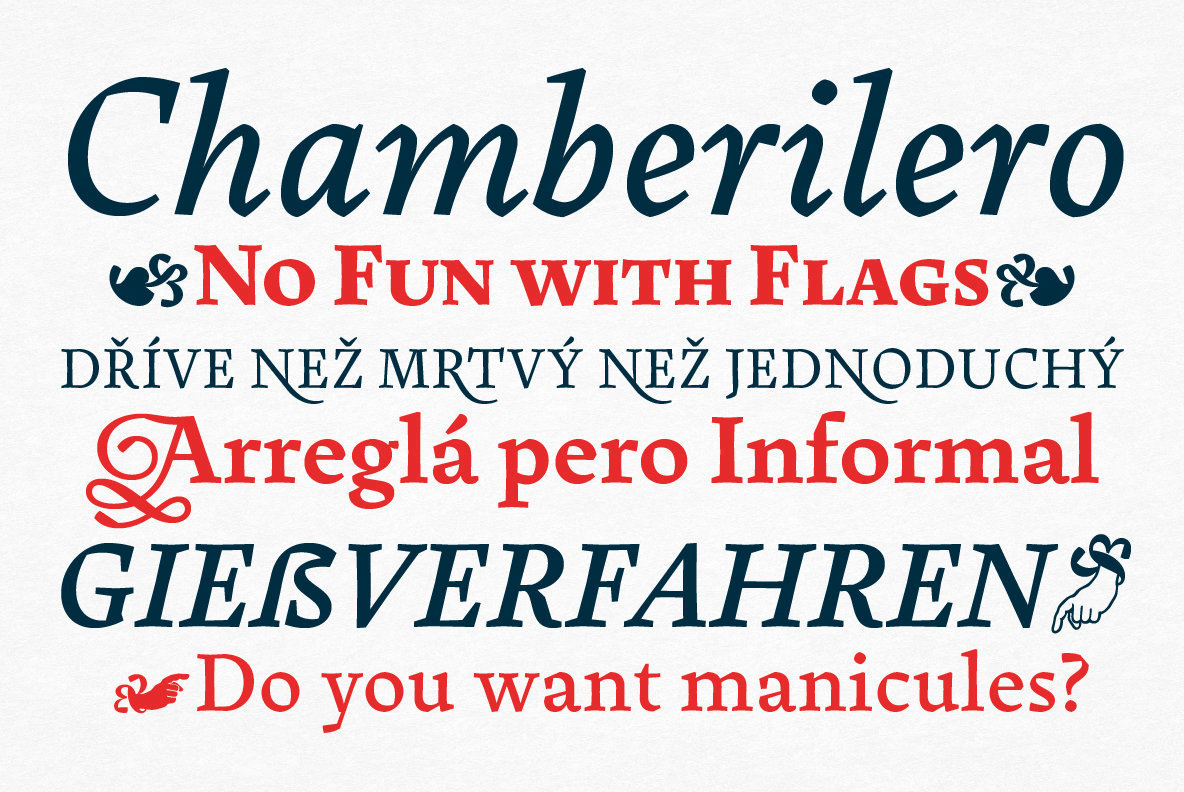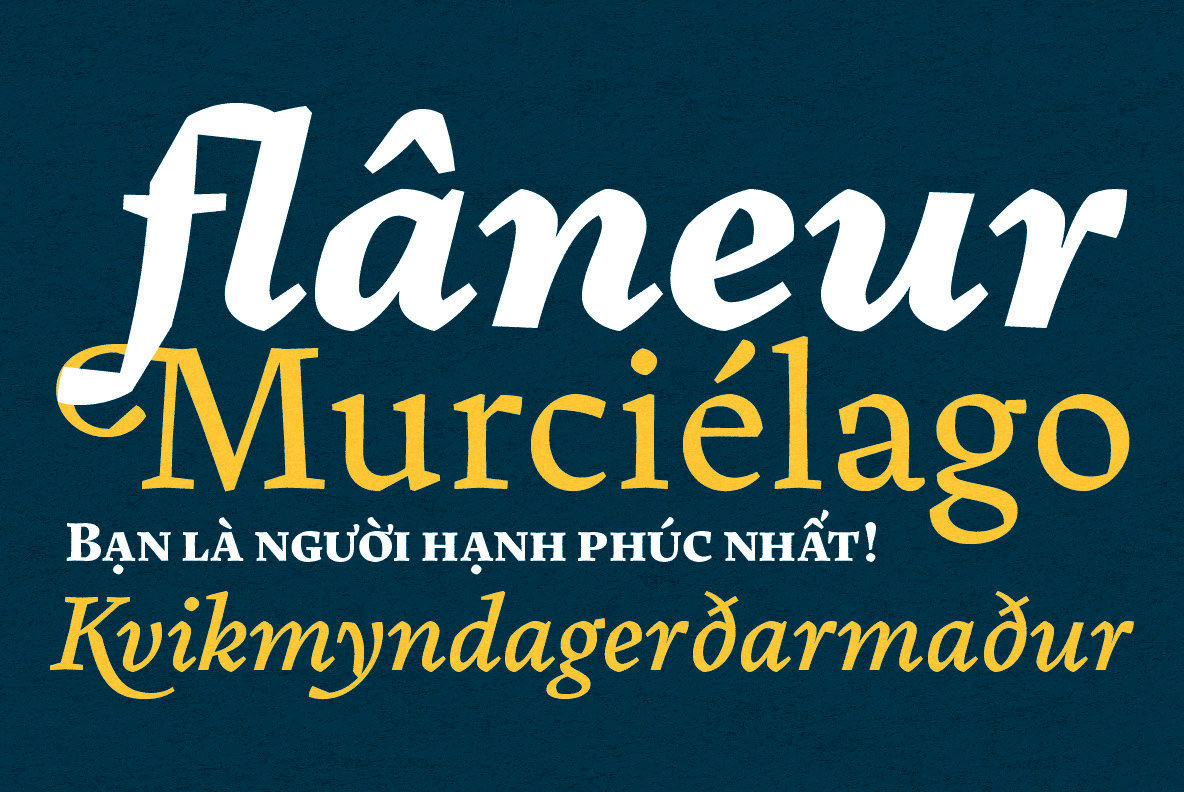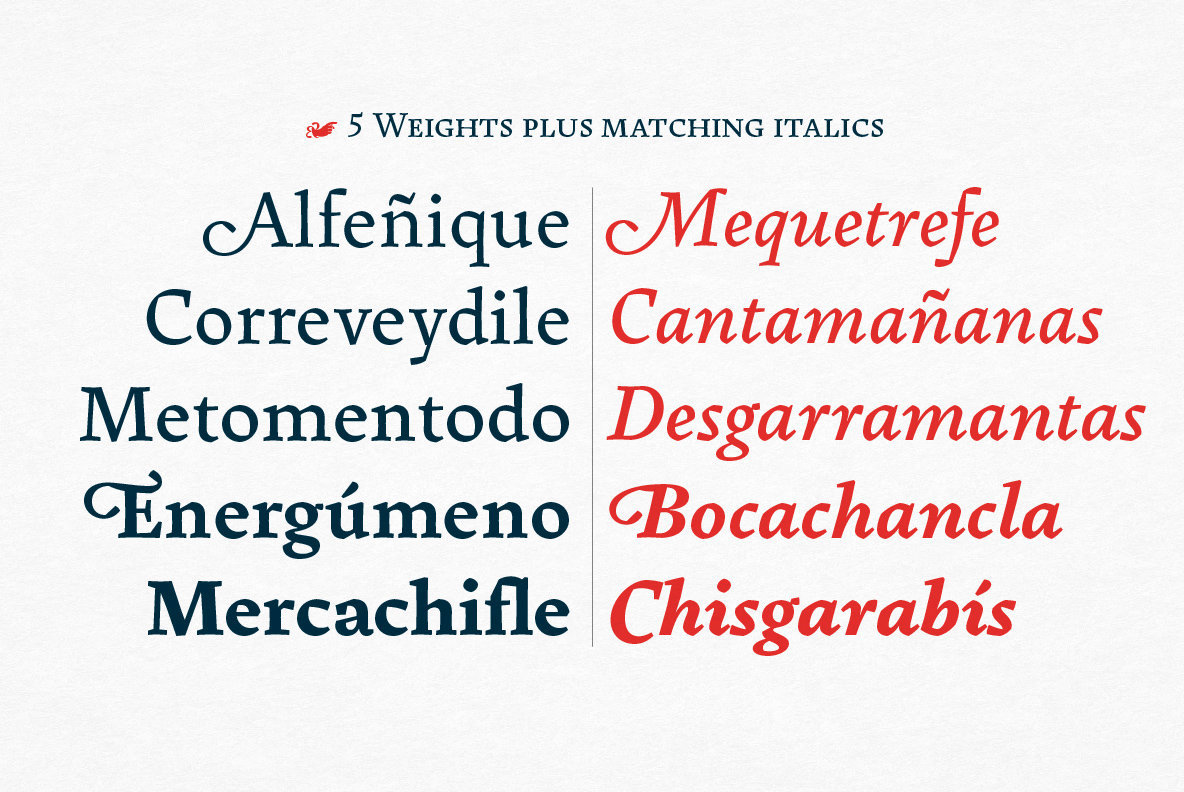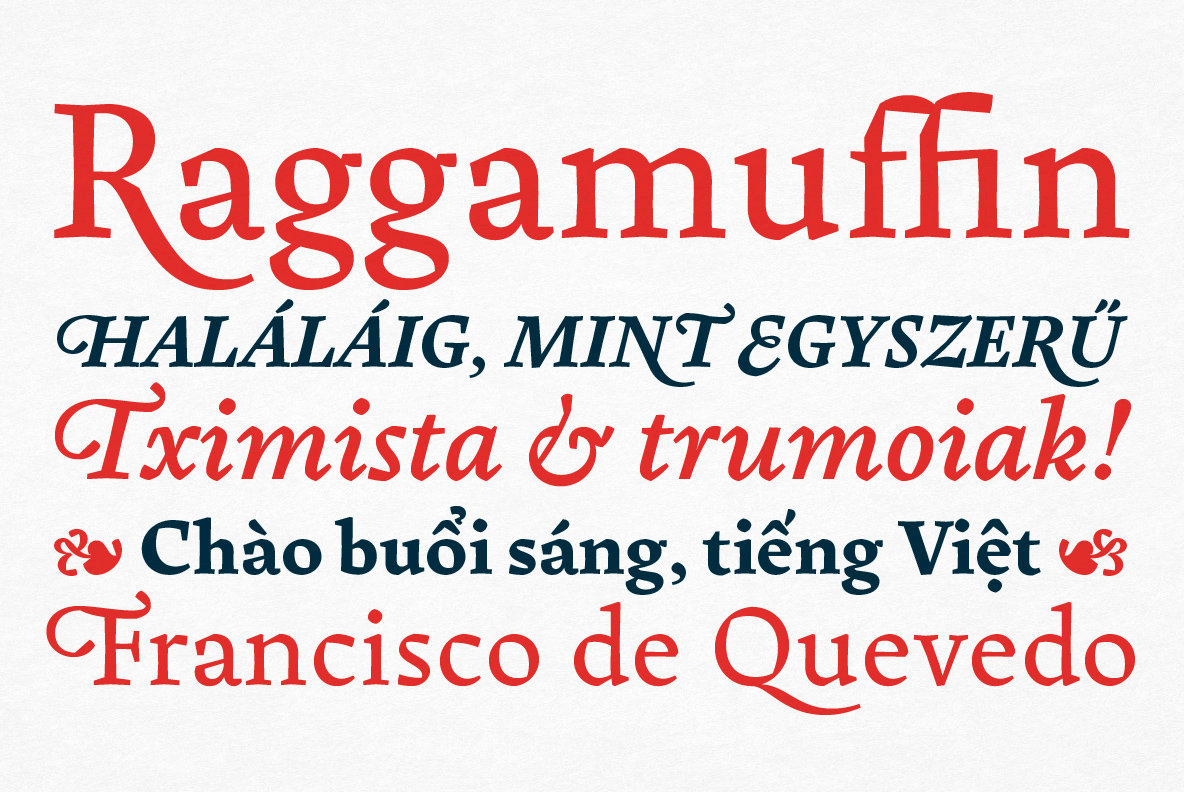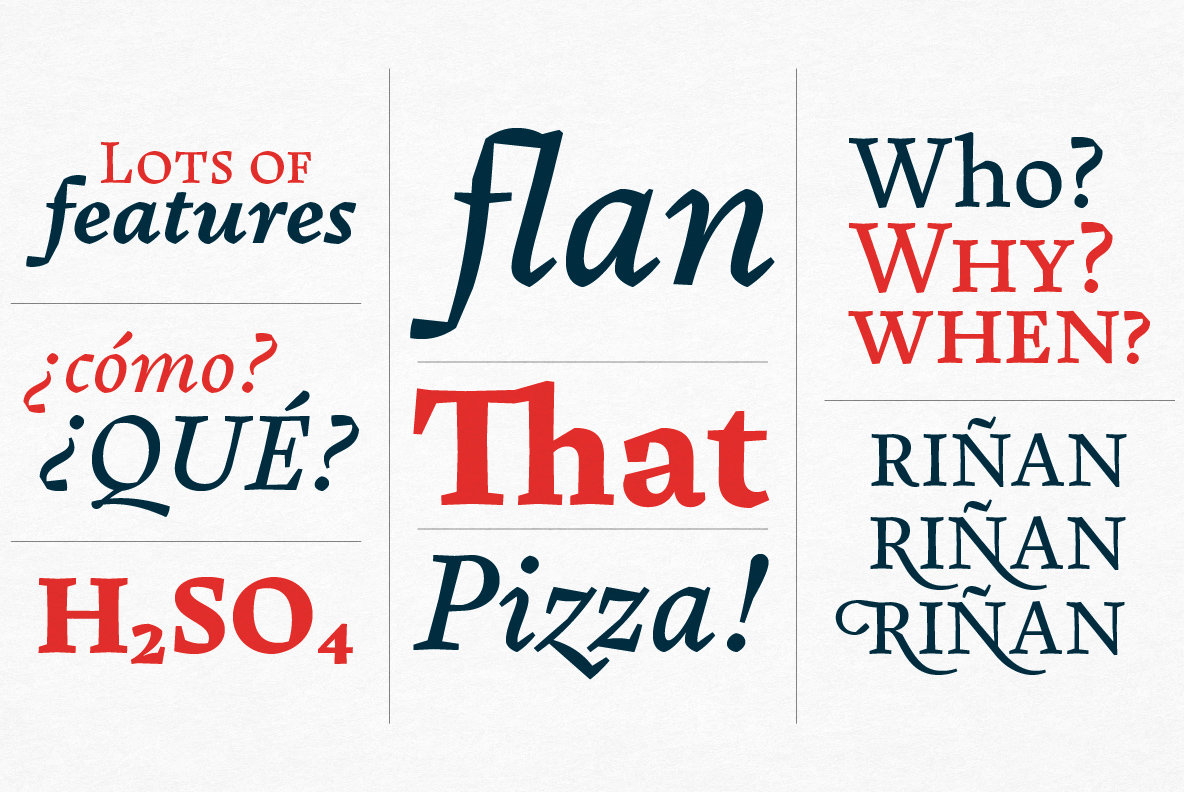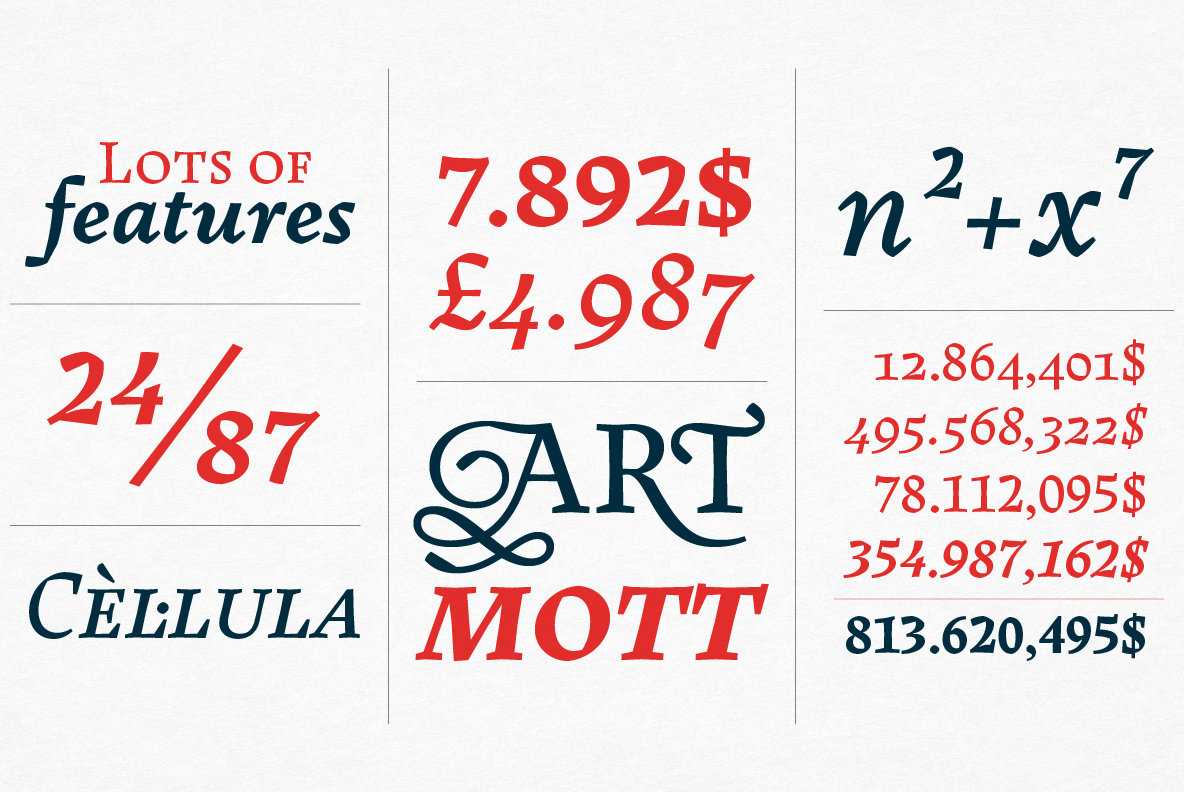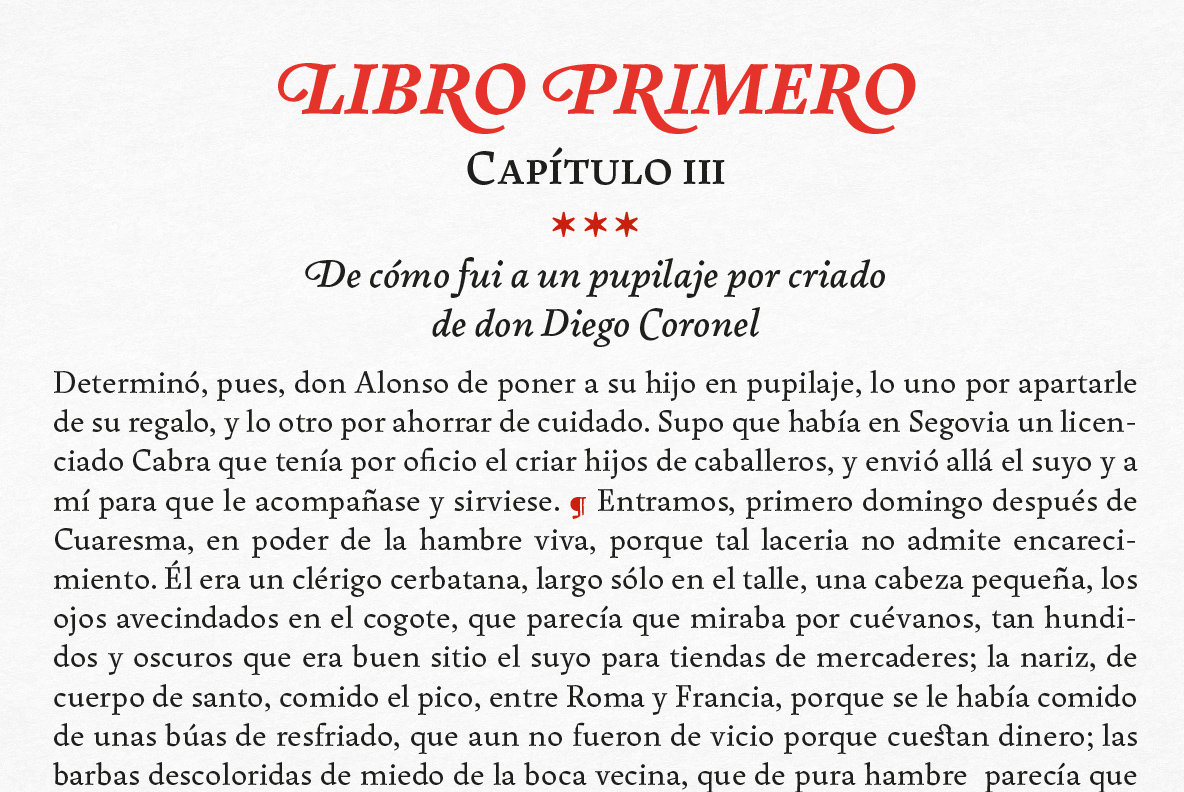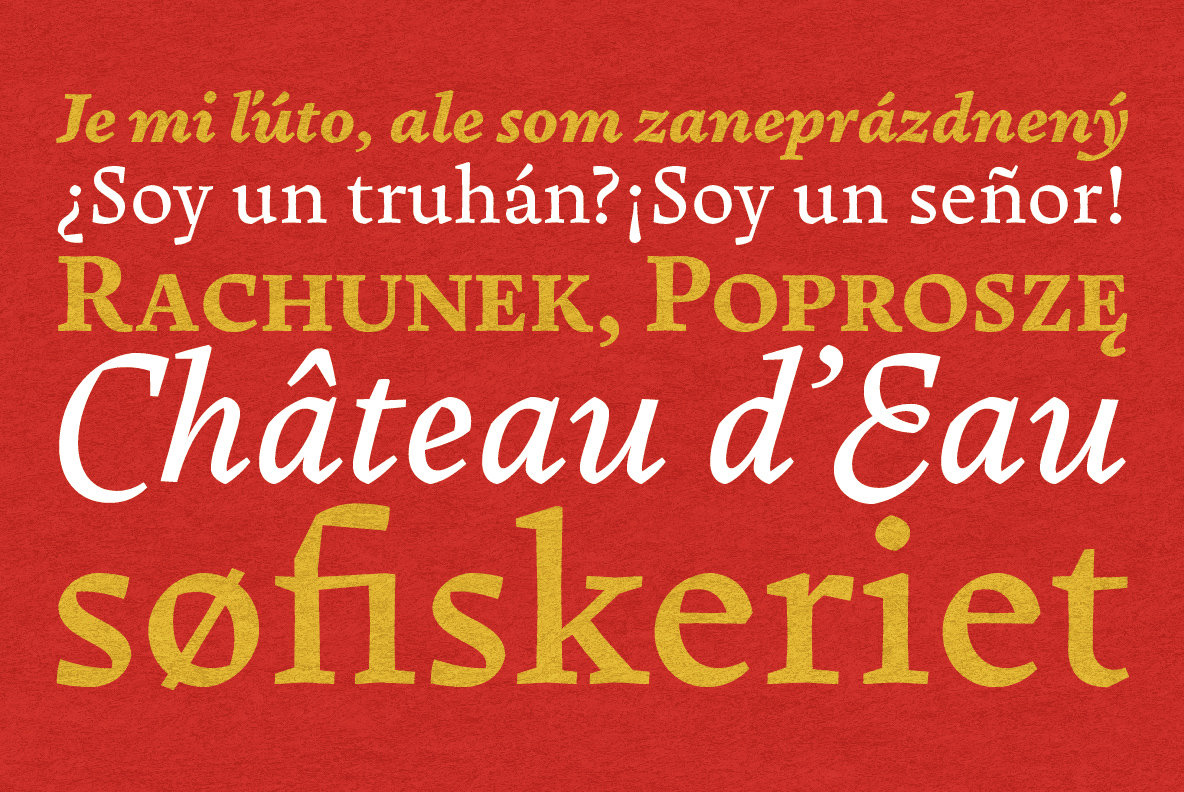
Pliego Font
Pliego is a textface designed to offer a comfortable continuous reading, with humanist proportions, an even texture, and informal calligraphic details noticeable only at big sizes, that gives it a contemporary feeling.
Pliego has been named after Pliegos de Cordel, the Spanish word for the popular books that were common during the XVI, XVII and XVIII centuries. These were rough, cheap books that basically consisted in a folded sheet attached to a string, hence the name. Their content was varied, from popular tales to ballads and songs, but also crimes and mysteries. They were cheaply made, roughly printed and bound. The name Pliego evokes the idea of a rough look, angular edges, informal taste, but classical look.
To cover today’s needs, Pliego includes five weights with matching italics. Designed and engineered for continuous reading, the Book, Regular and Medium weights will perform at their best under 14 points. However, don’t be scared to use for headlines and titles: because of its quirky details and calligraphic flavour, Pliego’s personality is accentuated when enlarged.
With an extensive Latin character set, Pliego covers a wide amount of Latin-based languages, including Latin Plus encoding and Vietnamese support.